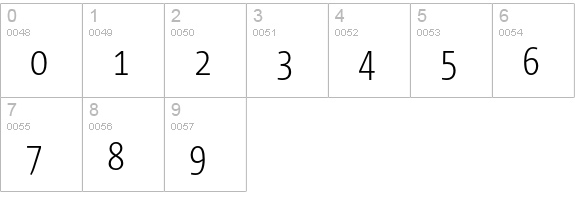
Corpid Cd Light Font Details
Corpid Cd Light is a refined, elegant variant in the Corpid typeface family \xE2\x80\x94 well suited to elegant body text, refined sub-headings, and luxury branding.
Corpid Cd Light font is a modern and sleek typeface that exudes elegance and sophistication. Its clean lines and subtle curves make it perfect for a wide range of design projects, from branding to editorial layouts. The light weight of the font adds a touch of delicacy and refinement to any text or headline. What's even better is that Corpid Cd Light font is available for free download at FontsMarket.com! This means you can easily access this versatile and stylish font to elevate your designs without breaking the bank. Don't miss out on the opportunity to enhance your projects with this beautiful typeface that is both visually appealing and easily readable. Download Corpid Cd Light font today and take your designs to the next level.